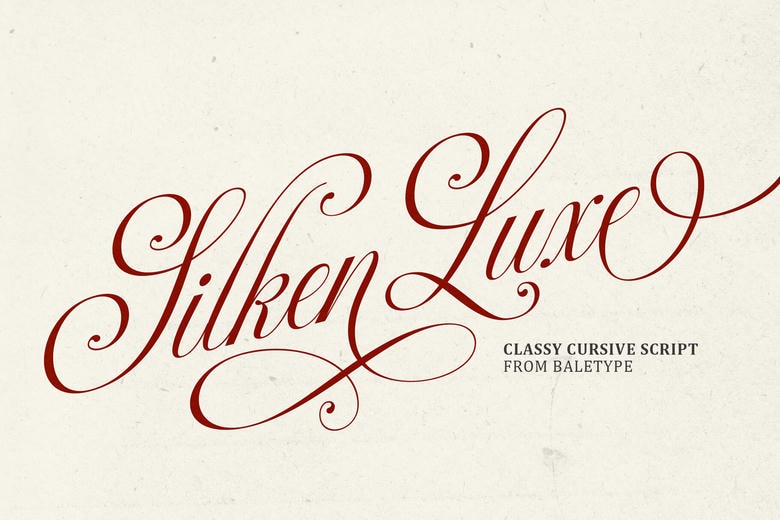
Silken Luxe is a script font that adds elegance, romance, and sophistication to your designs. Its smooth, flowing letters are great for wedding invitations, logos, branding, quotes, stationery, packaging, or any project that needs a bit of luxury.
This font works well with both classic, romantic designs and modern, elegant ones. It supports multiple languages, making it a versatile choice for creative projects around the world.
Silken Luxe Script Font